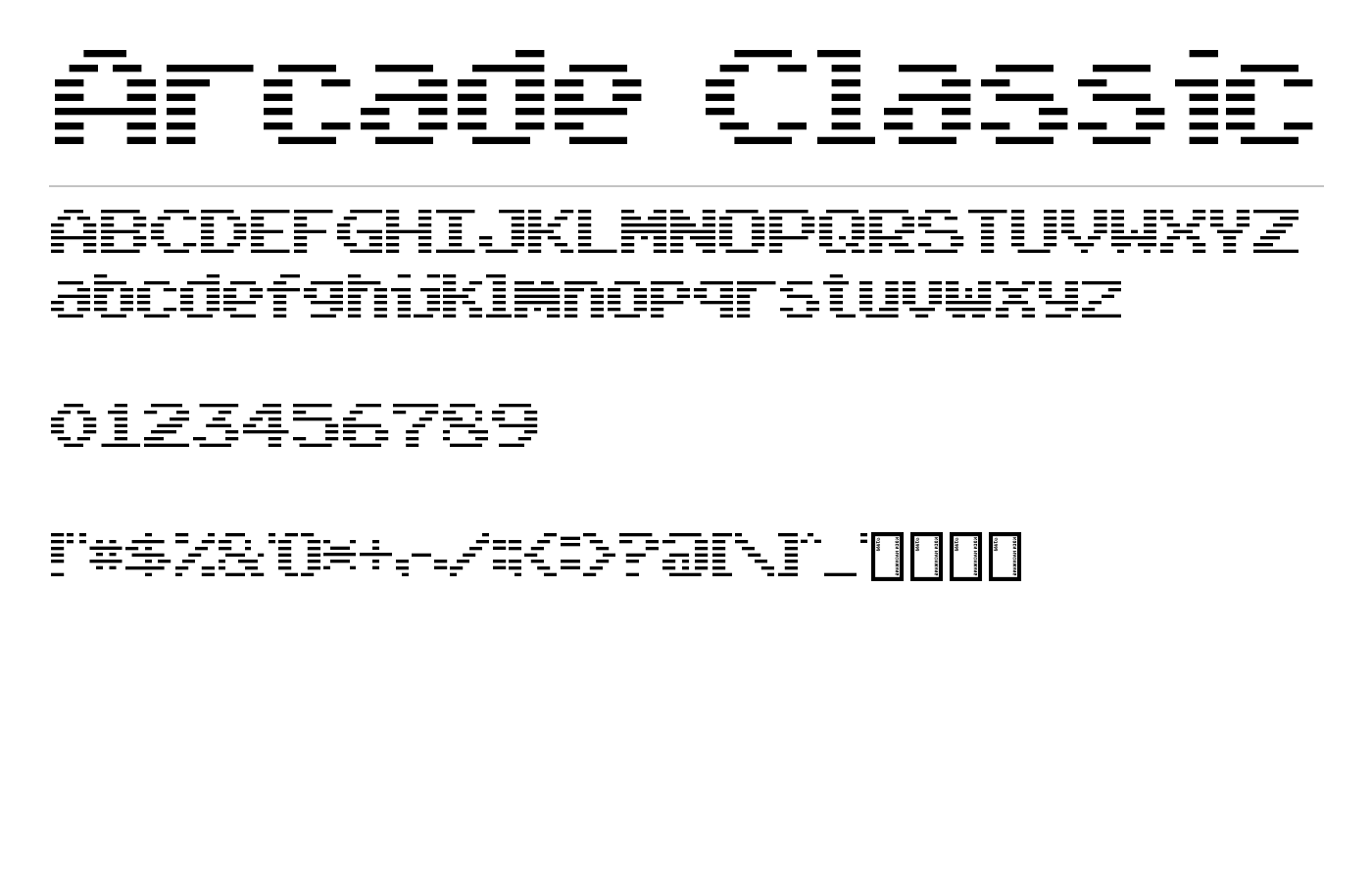
Arcade Classic is a pixel-inspired sans serif font that evokes the nostalgic feel of vintage video games with its blocky, segmented letterforms. Its monospaced, geometric structure features consistent spacing and a clean, digital aesthetic, making it ideal for retro-themed designs, gaming logos, or tech-related projects looking to capture an 80s arcade vibe. This font works best for headlines and display text, where its distinctive pixel-art style can stand out and bring a playful, nostalgic energy to your design.
Arcade Classic Font